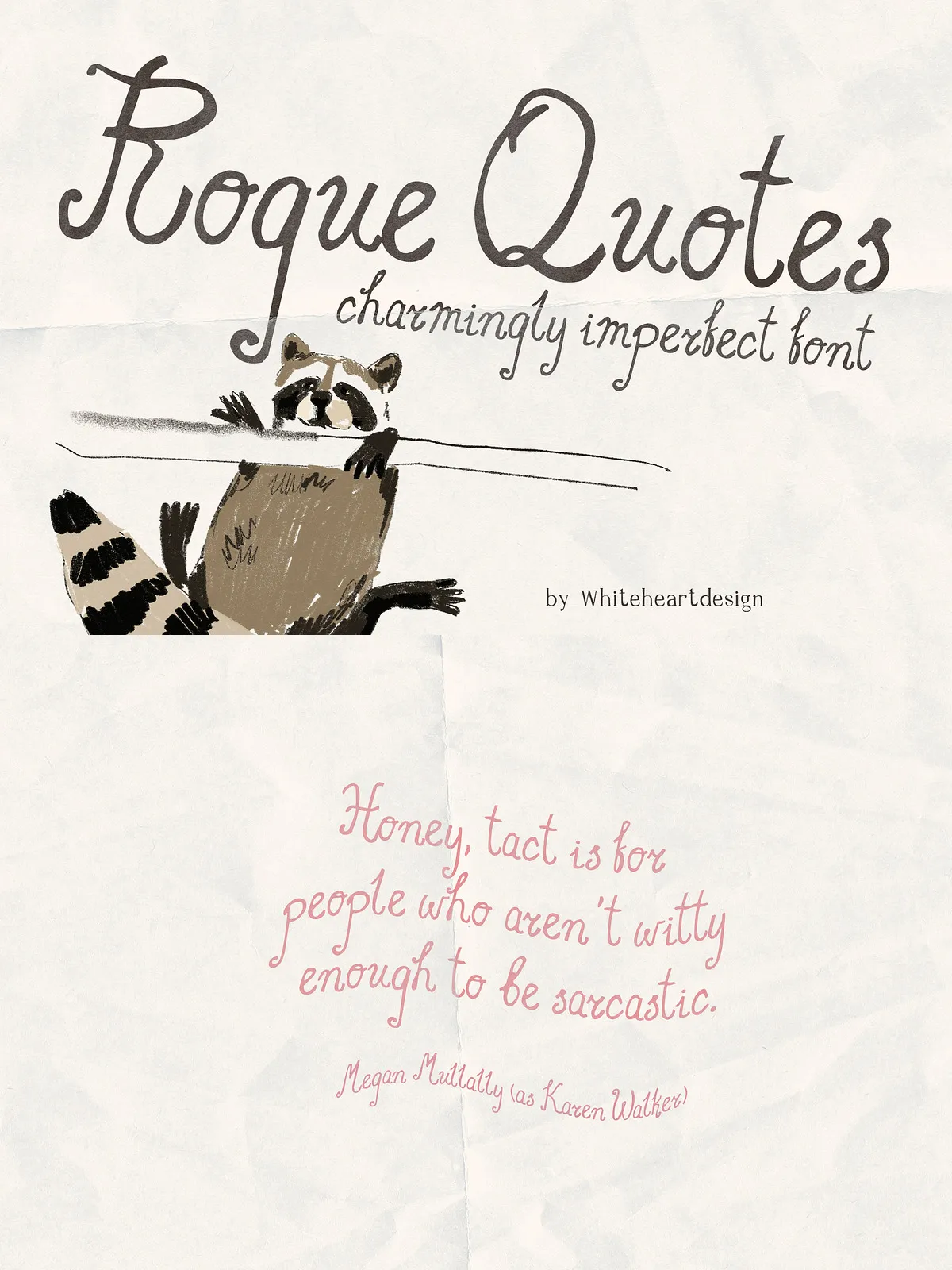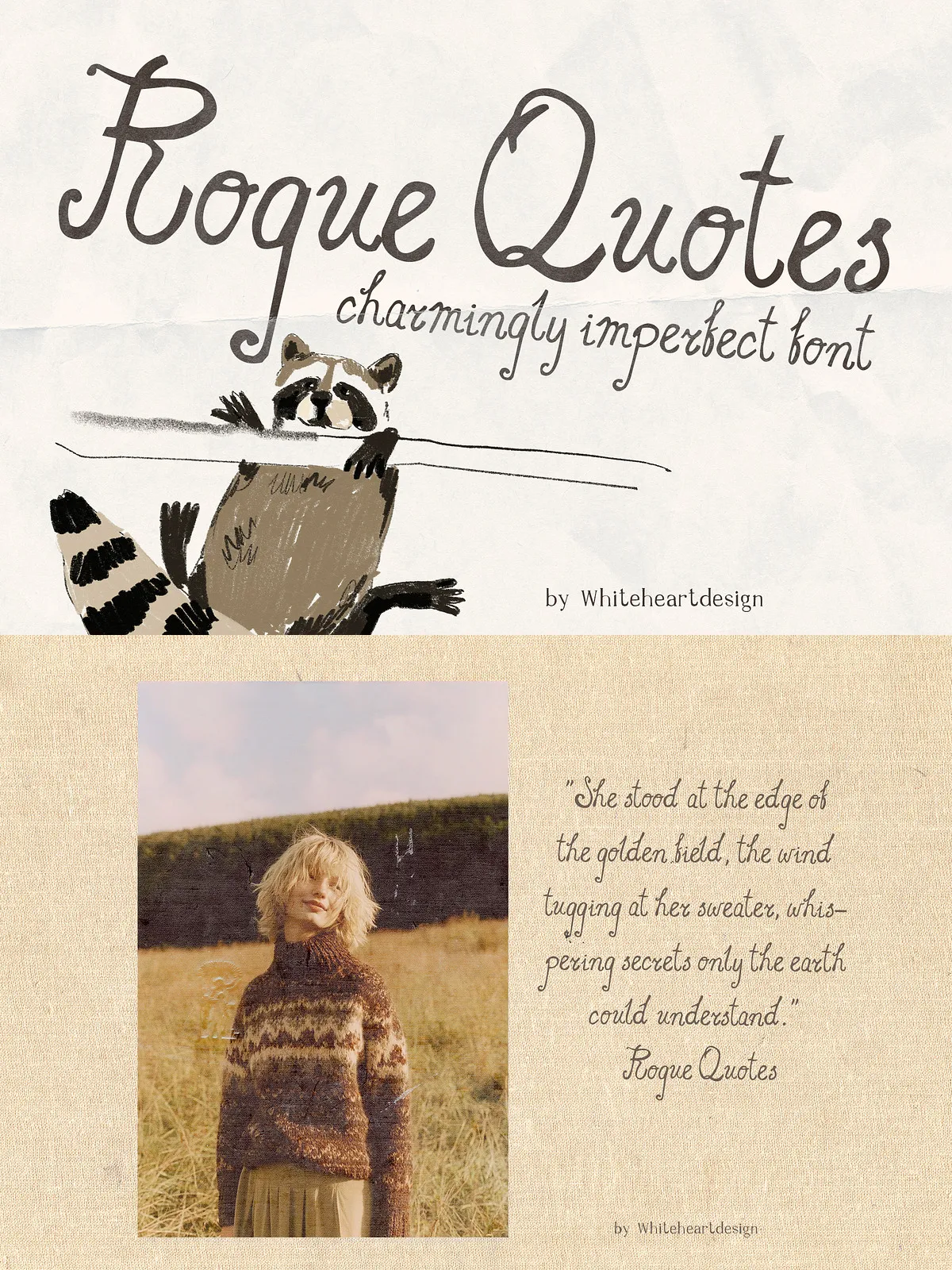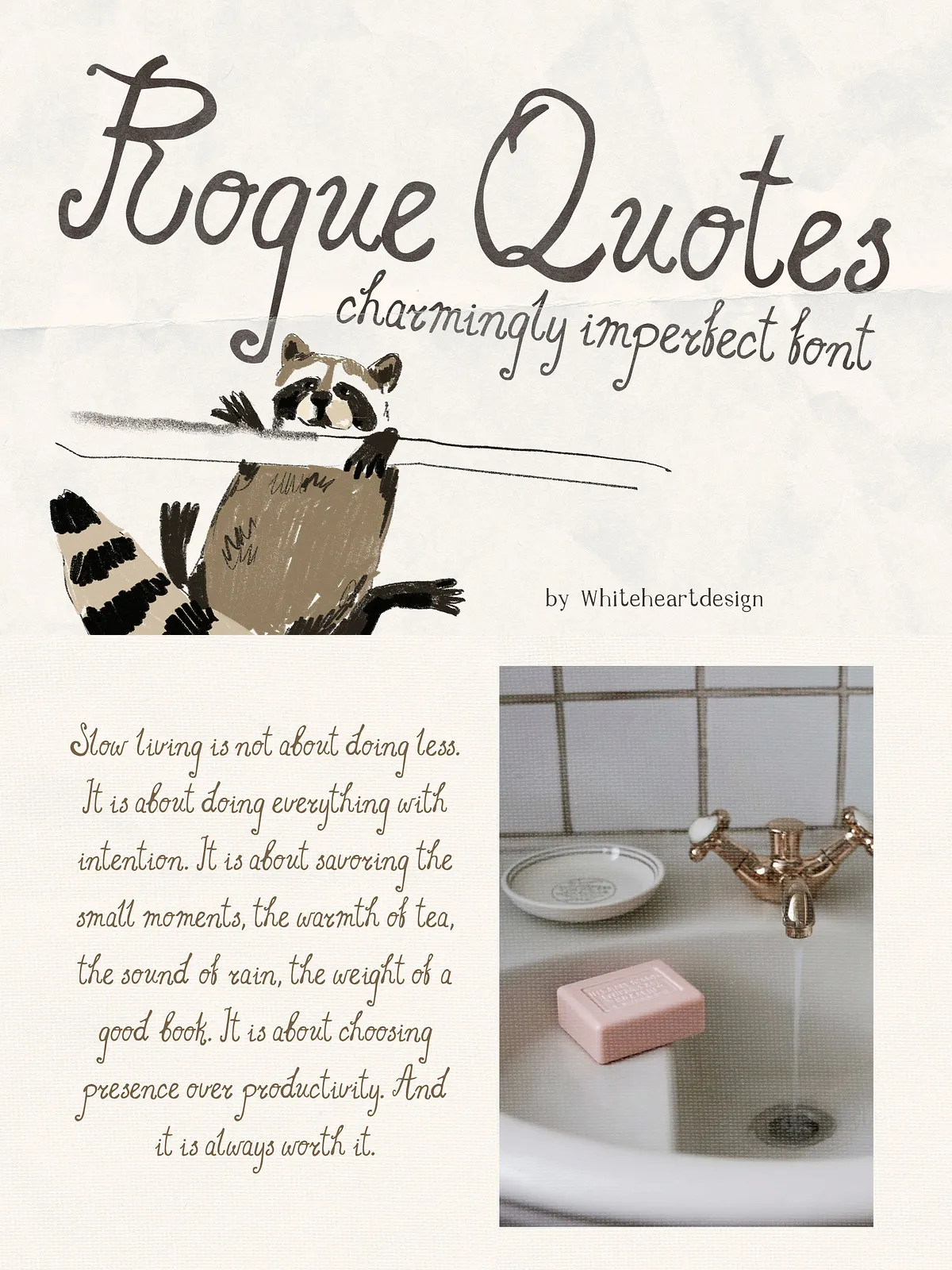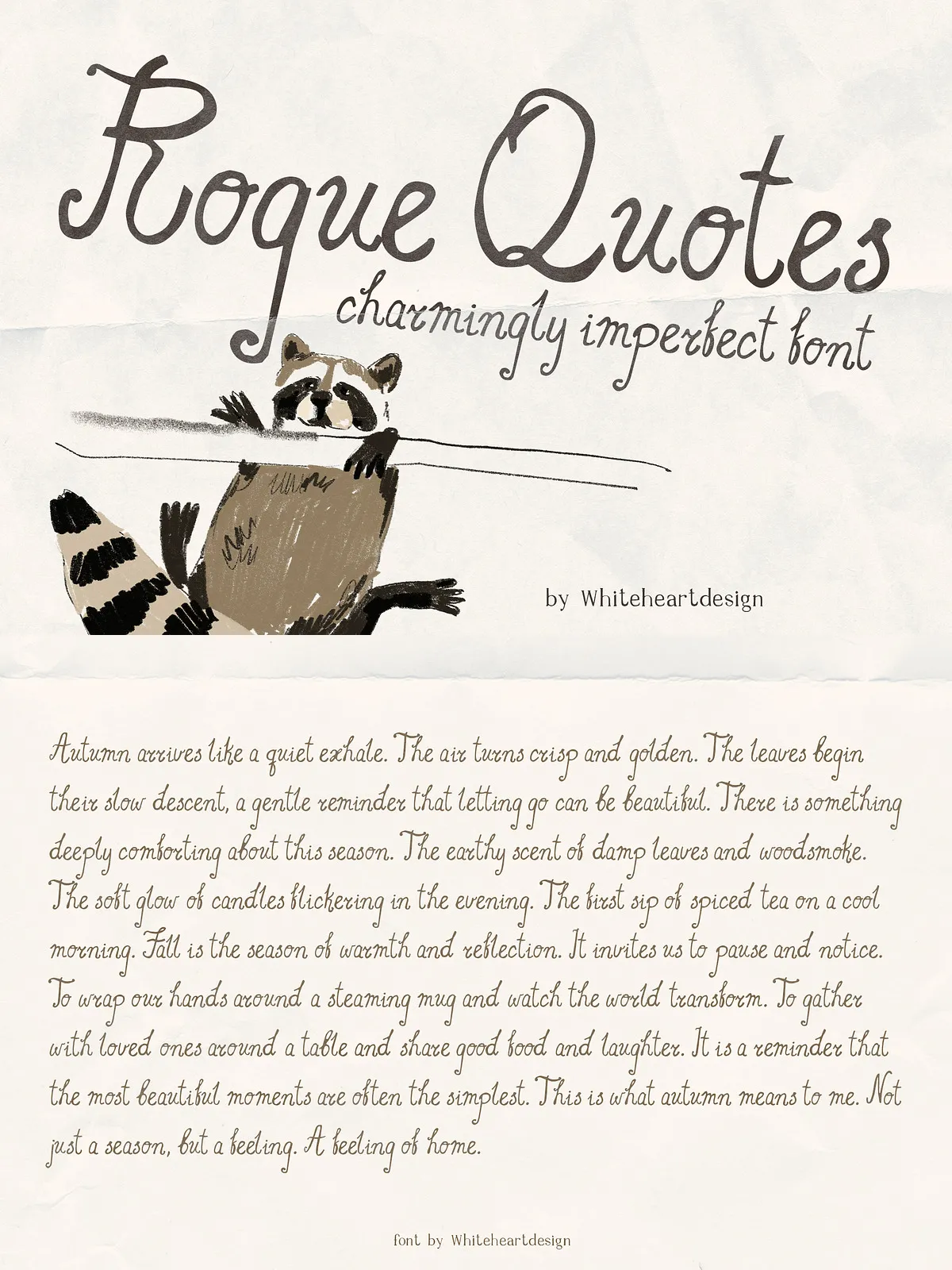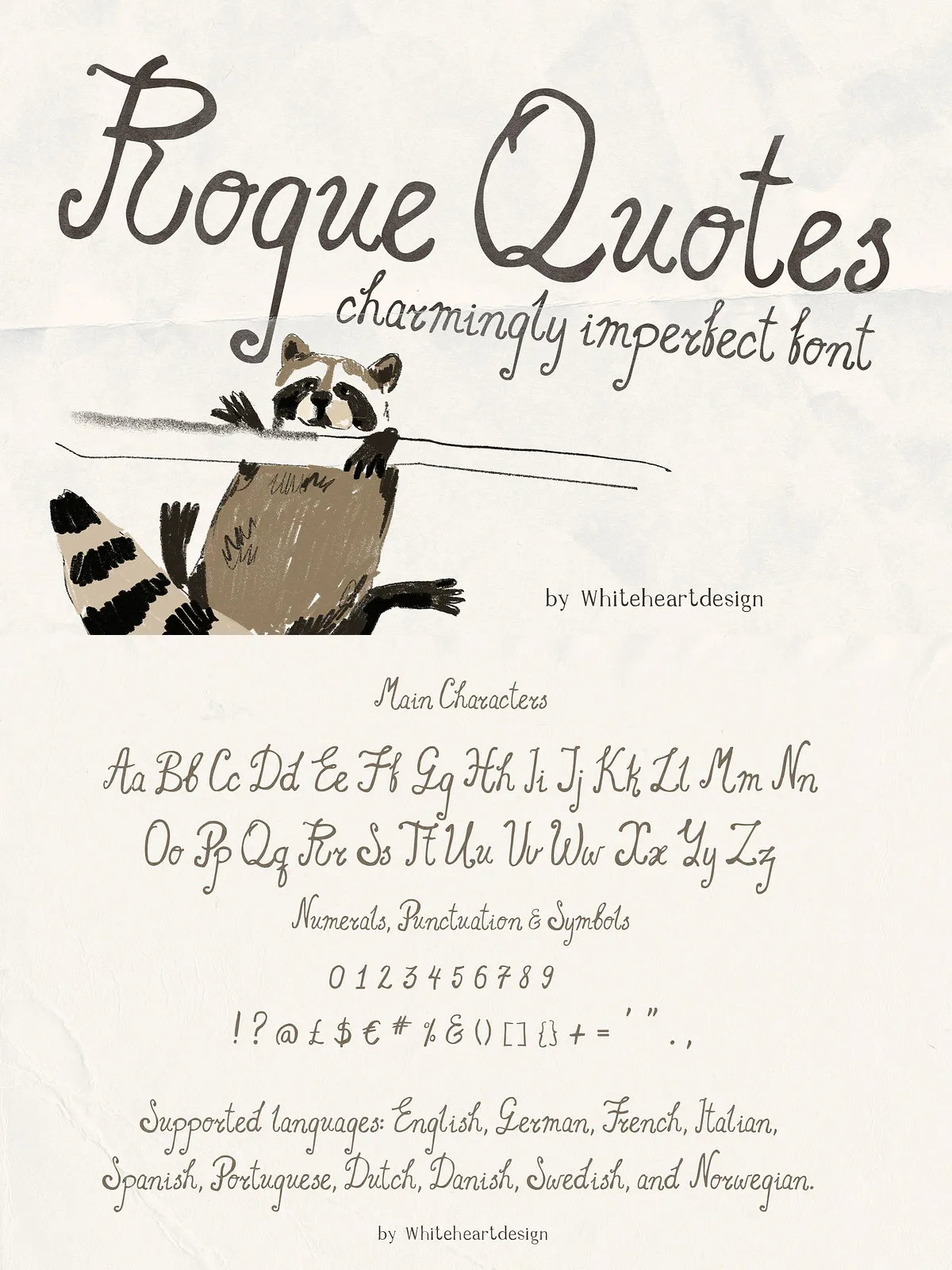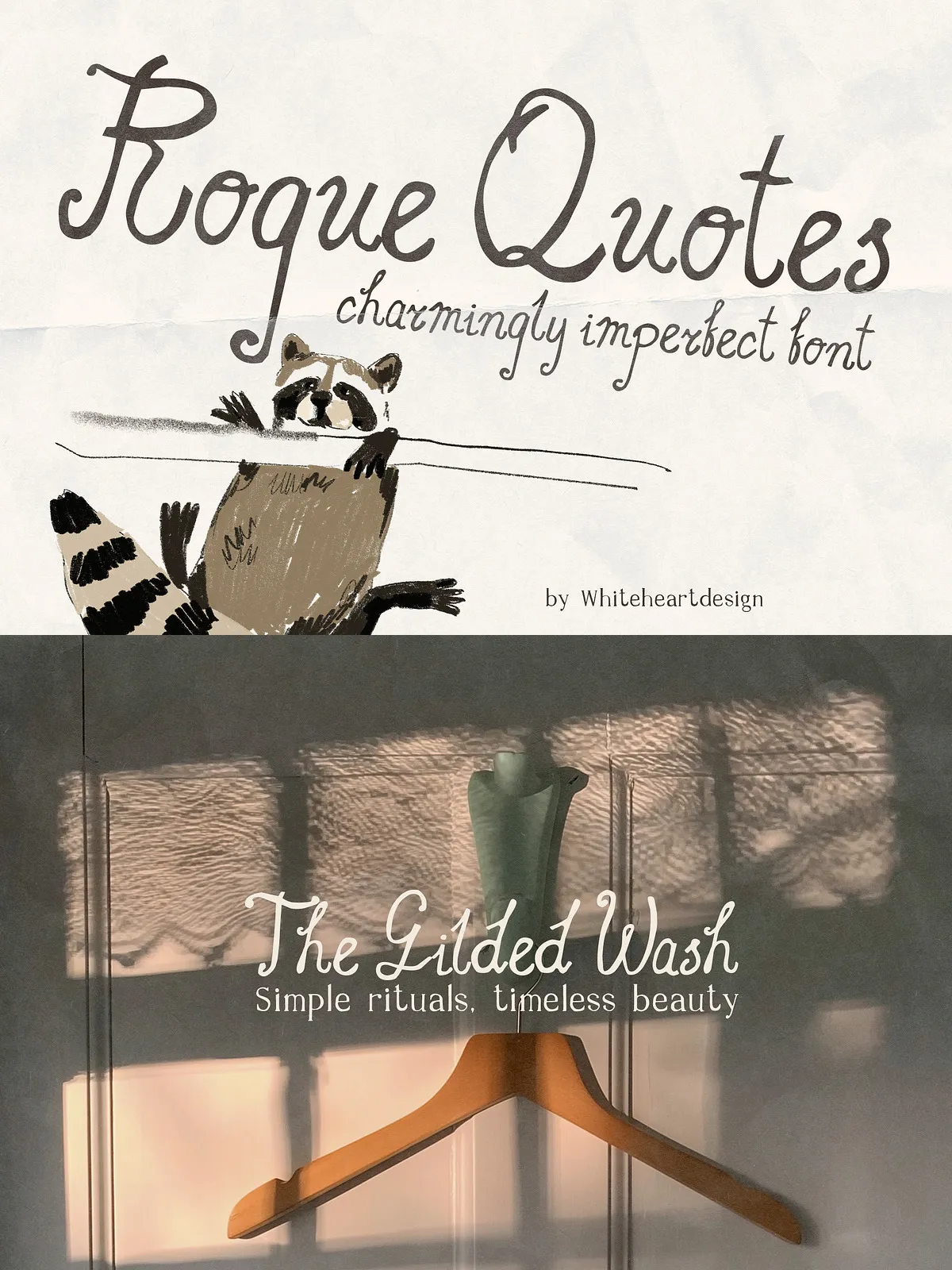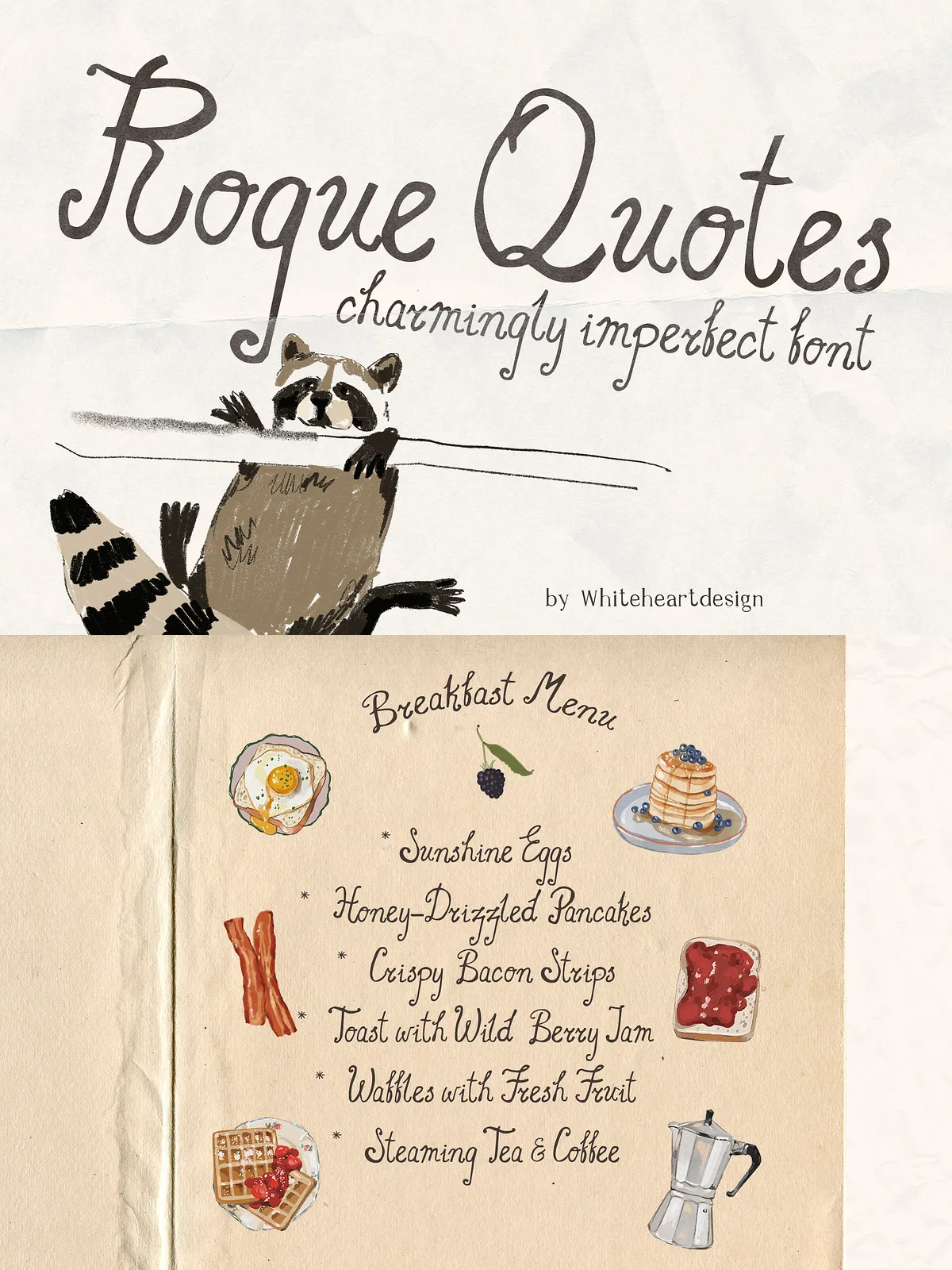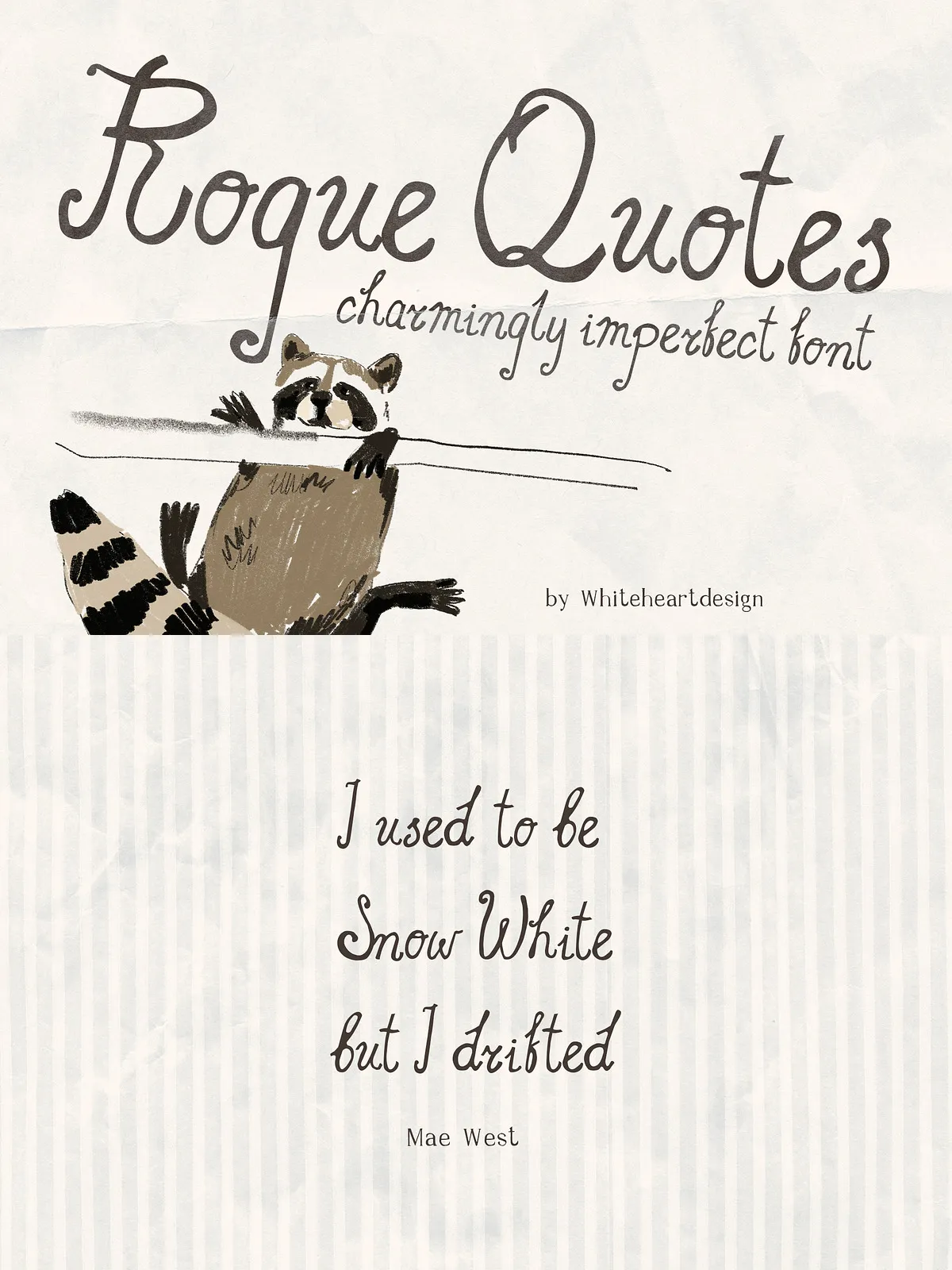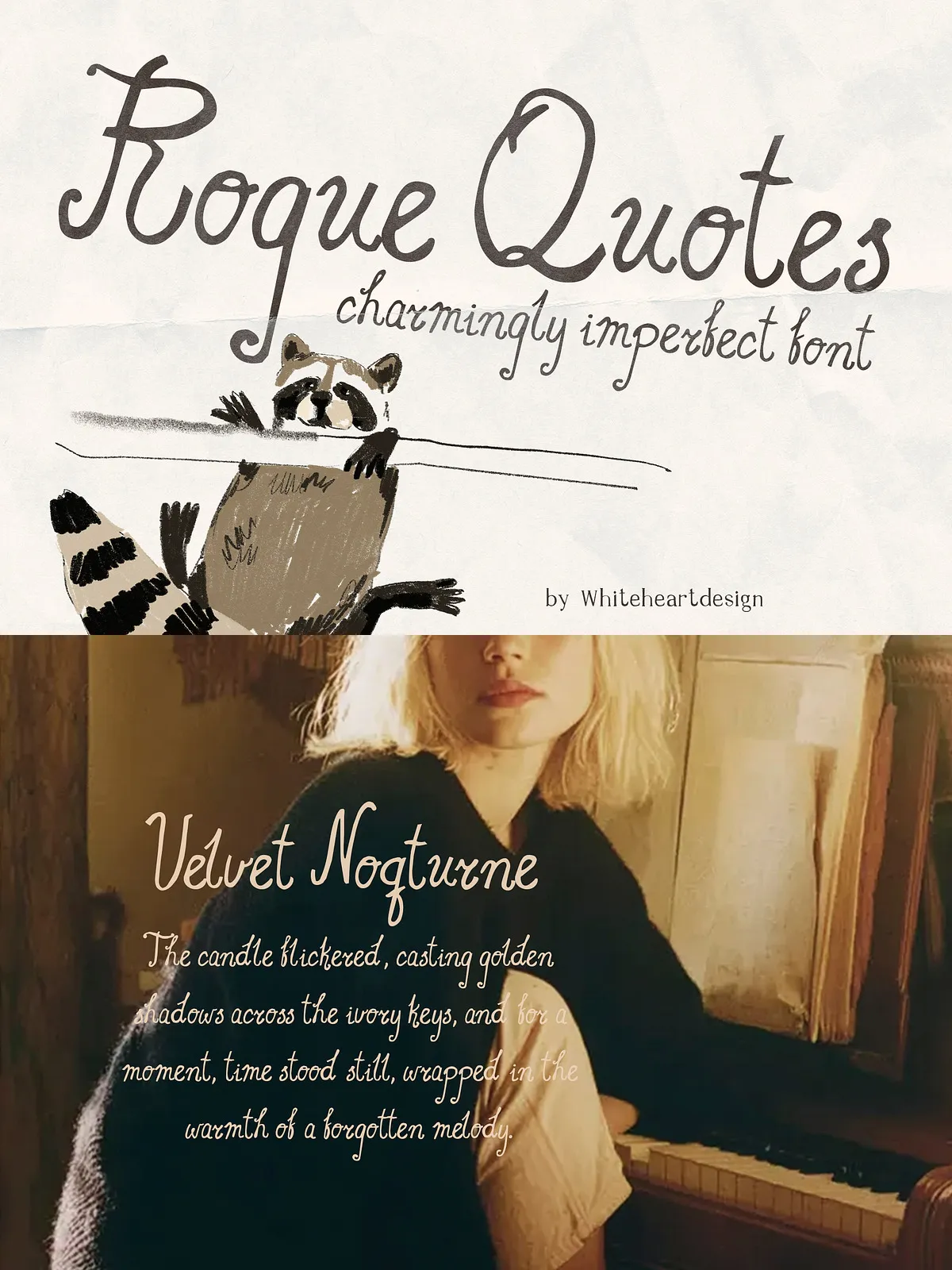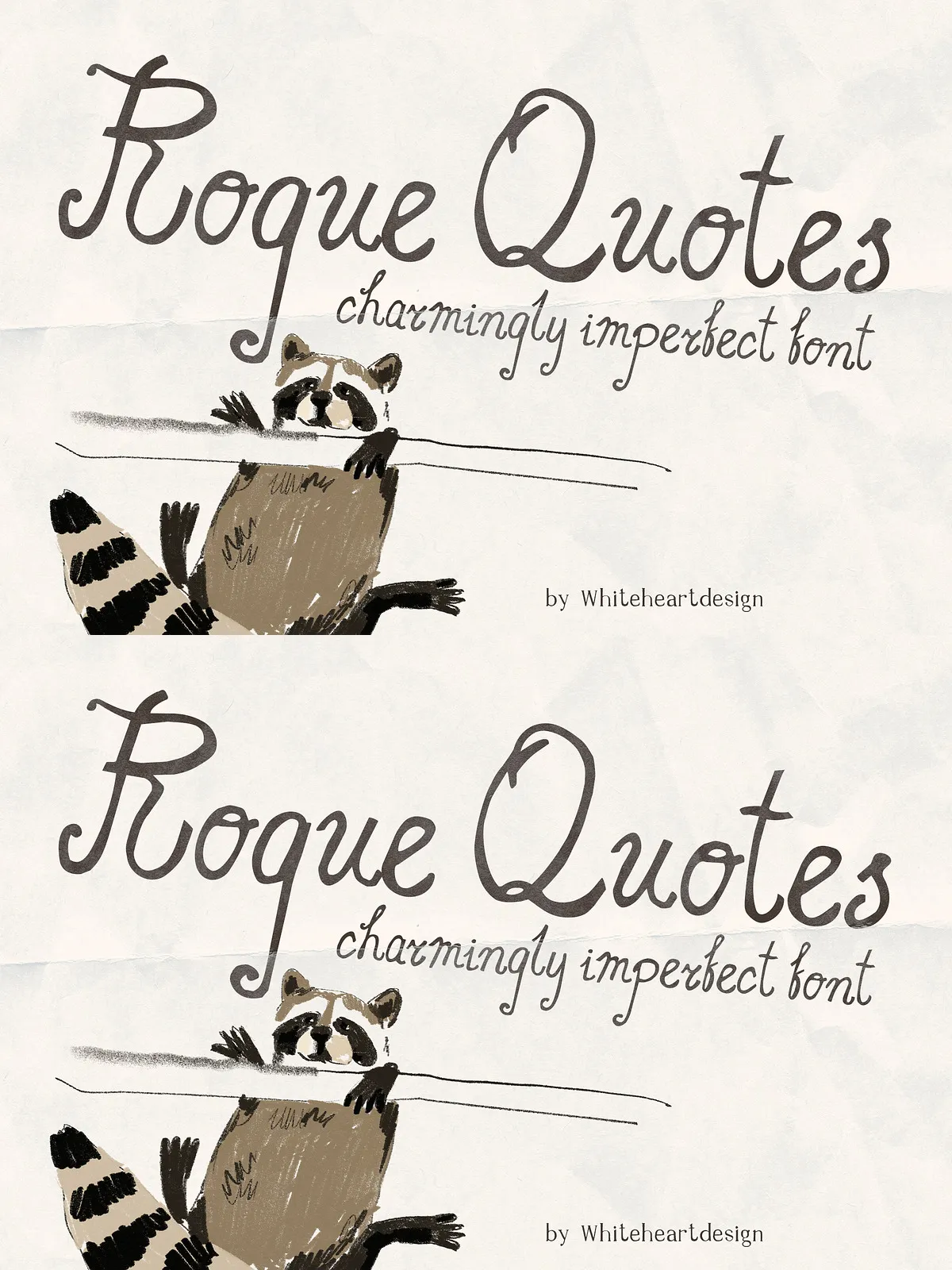
Meet Rogue Quotes—a whimsical handwritten font trio that celebrates the beauty of imperfection. This set includes three perfectly coordinated styles: an organic serif, a delicate outline serif, and an elegant flowing script. Each font is crafted with natural brushstrokes, gentle wobbles, and authentic hand-drawn charm, giving your designs a warm, storybook feel.
· Uppercase & lowercase letters
· Numerals & punctuation
· Multilingual suppor
Supported languages: English, German, French, Italian, Spanish, Portuguese, Dutch, Danish, Swedish, and Norwegian.